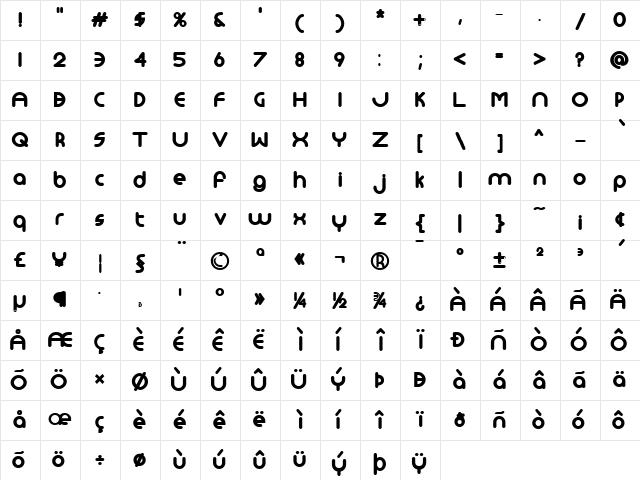
Monoglyceride ExtraBold Free Font
Monoglyceride ExtraBold
Monoglyceride Family
Design Context for Monoglyceride
Monoglyceride uses fixed-width spacing throughout, giving it the structured, systematic character associated with coding environments and technical documentation. Its bold stroke weight gives it real presence on the page.
Pro Tip: Use Monoglyceride with slightly increased line-height for extended reading - fixed-width spacing can feel dense in longer passages without extra breathing room.